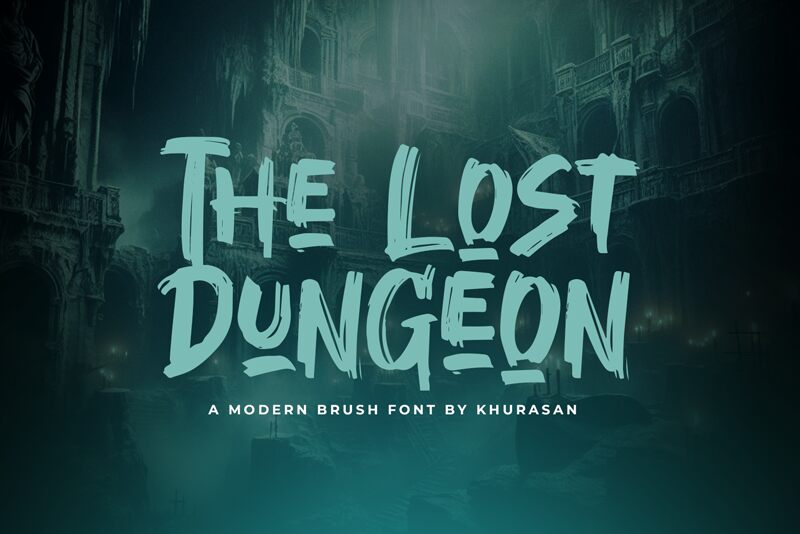
The Lost Dungeon
The Lost Dungeon, crafted by the adept hands of Khurasan, stands as a semi-bold brush font that exudes adventure and mystery. Its sweeping strokes and deliberate imperfections capture the essence of an ancient script found etched in the depths of a long-forgotten cavern. Each character brims with an untamed energy that speaks to its brush-style origins, making it an ideal choice for projects that require a touch of the mystical or the thrill of discovery.
Its robust semi-bold weight ensures legibility while maintaining a raw aesthetic appeal, perfect for captivating book covers, evocative posters, and engaging gaming interfaces. The Lost Dungeon is more than just typeface; it's a gateway to realms unexplored, beckoning creators to unlock its full potential in their next creative endeavor.